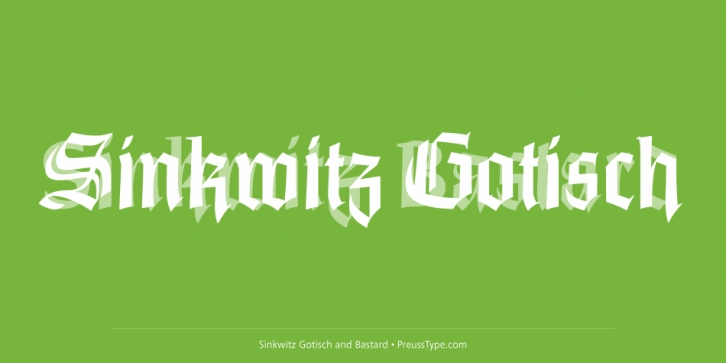
Publisher: preussTYPE
Designed by Paul Sinkwitz, Sinkwitz is a blackletter font family. This typeface has two styles and was published by preussTYPE.
The Sinkwitz Gotisch was 1942 by AG Dresden font cast first cast and later supplied by the East German firm VEB Typoart. Paul Sinkwitz (1899-1981) has created them. This font displays not the characteristics of a chunky Gothic, which have influenced the image of national socialism. Paul Sinkwitz was a painter, graphic artist, wood engraver, was interested in religious topics, which he had presented in numerous graphics. But also his interpretation of his Gothic font is modern, without having the font this is ugly.
In addition to the Gotisch he created Roman Uppercase letters, which perfectly harmonize with the lowercase letters. This extra font is called Bastard. The digital version of Sinkwitz is a beneficial addition to a Gothic with calligraphic character and should be in any historically interested graphic design.
· Sinkwitz Gotisch
· Sinkwitz Bastard